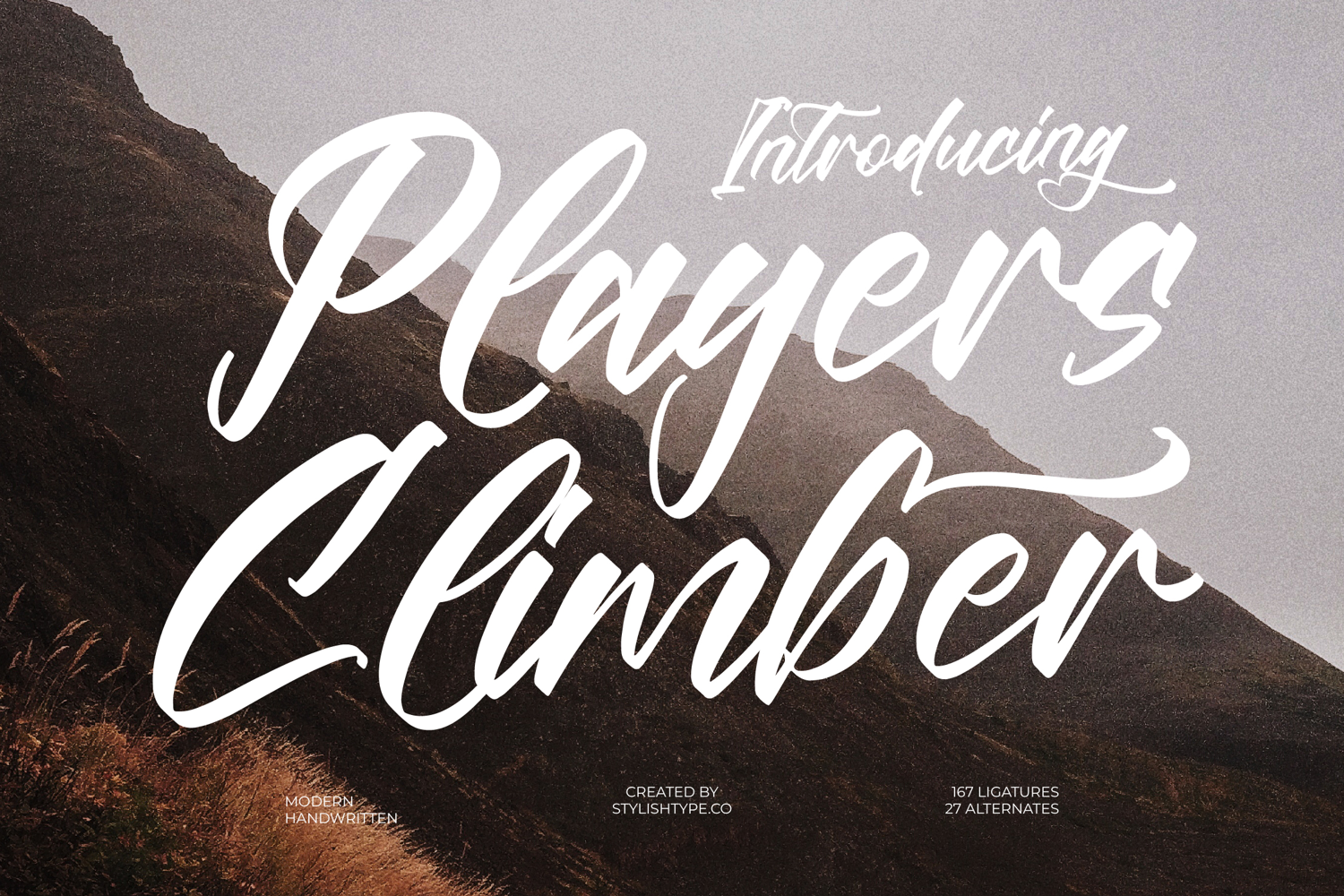
Players Climber - Modern Handwritten Font
Players Climber
Players Climber Italic
Players Climber - Modern Handwritten Font captures the raw energy of genuine brush lettering with unparalleled polish. This bold script typeface features dynamic, high-contrast strokes and sweeping dramatic swashes that command attention, instantly lending an air of sophisticated adventure to any project. It perfectly balances a rugged, handwritten feel with the refined quality demanded by modern design aesthetics, ensuring visibility and impact across all mediums.